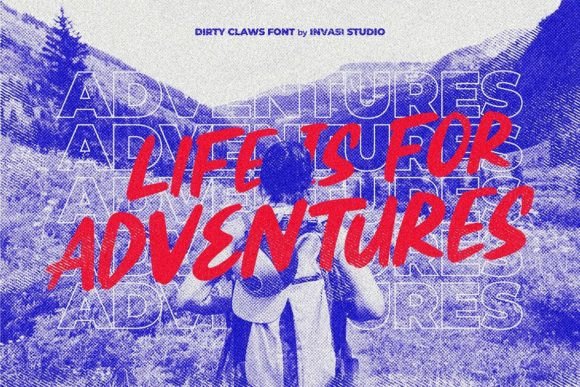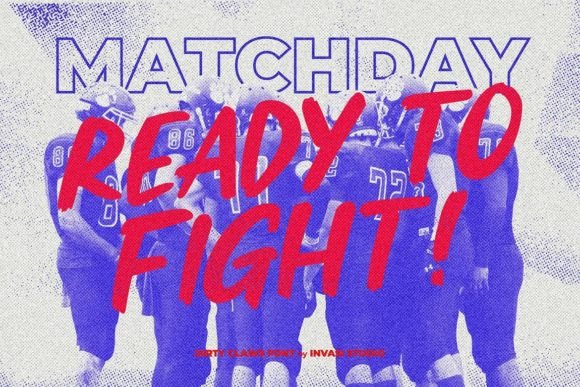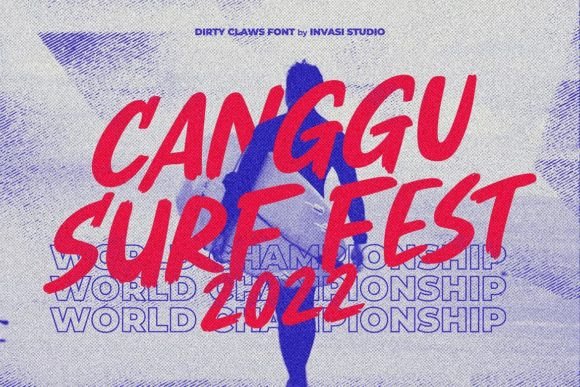
I still remember the frustration of working on a project, hours spent on perfecting every detail, only to be stuck on one thing: the font. My client wanted something bold, something that would make their brand stand out, but I just couldn’t seem to find it. That was until I stumbled upon the Dirty Claws Font. With its aggressive, dirty brush style, it was love at first sight! ✨
An Honest Review of Dirty Claws Font
- 💥 Aggressive and Bold: Dirty Claws Font is perfect for making a statement. Its bold, all-caps style is sure to grab attention.
- 🎨 Alternative Characters: The font comes with alternative characters, giving you more flexibility and creativity in your designs.
- 🔍 Standard Ligatures and Multi-Language Support: It’s equipped with standard ligatures and supports multiple languages, making it a versatile choice for designers.
- ✅ Easy to Read: Despite its bold style, the font is surprisingly easy to read, even in smaller sizes.
While Dirty Claws Font is an excellent choice, there are a few things to keep in mind: 🤔
- ⚠️ Limited Use Cases: Due to its bold style, it might not be suitable for body text or more formal designs.
- ⚠️ Glyphs Can be Overwhelming: With so many alternative characters and glyphs, it can be overwhelming to navigate, especially for beginners.
The Backstory of Dirty Claws Font
Dirty Claws Font was designed with one goal in mind: to create a bold, eye-catching font that would inspire designers to push the boundaries of their creativity. The designer, fueled by a passion for street art and graffiti, aimed to capture the raw energy of urban culture in a font that would be both aggressive and beautiful. The result is a font that’s perfect for designers looking to add a bold touch to their projects.
| Font Name | Dirty Claws Font |
| Author | invasistudio |
Q: What is Dirty Claws Font?
A: Dirty Claws Font is an all-caps, aggressive dirty brush font designed to add a bold and strong touch to your projects.
Q: Is Dirty Claws Font easy to read?
A: Despite its bold style, Dirty Claws Font is surprisingly easy to read, even in smaller sizes.